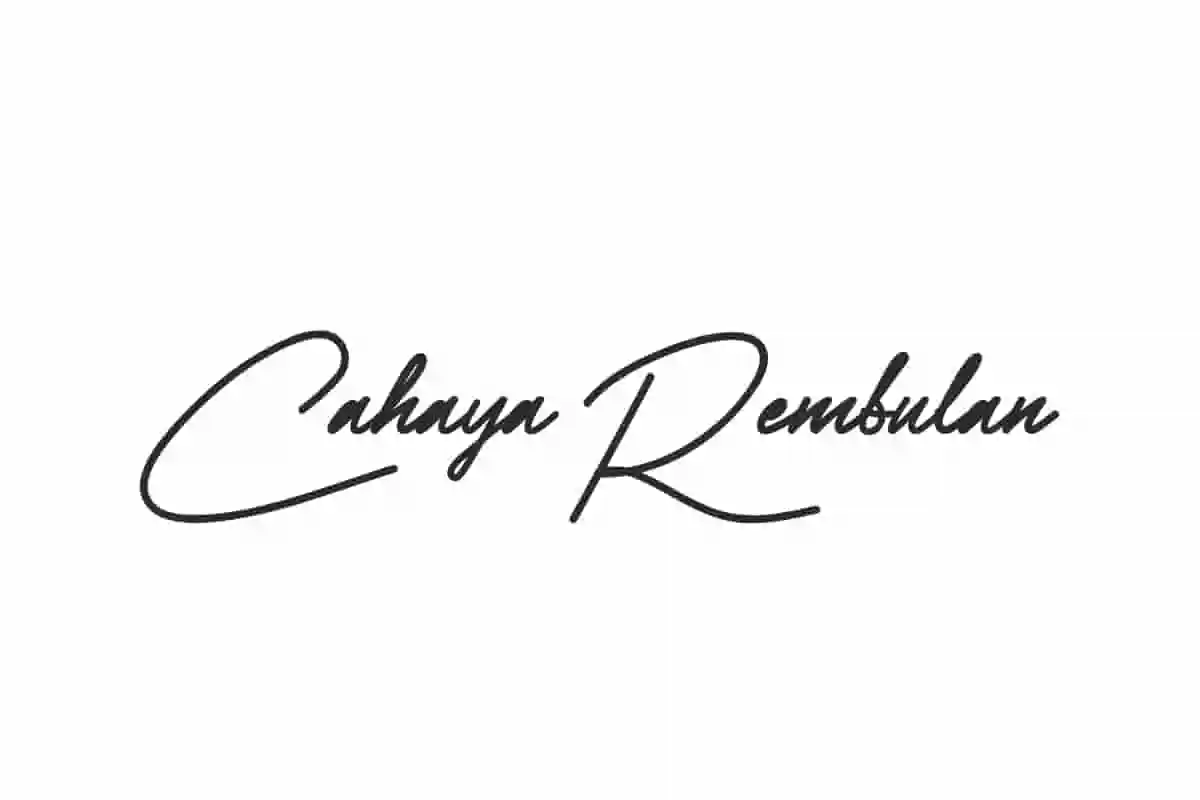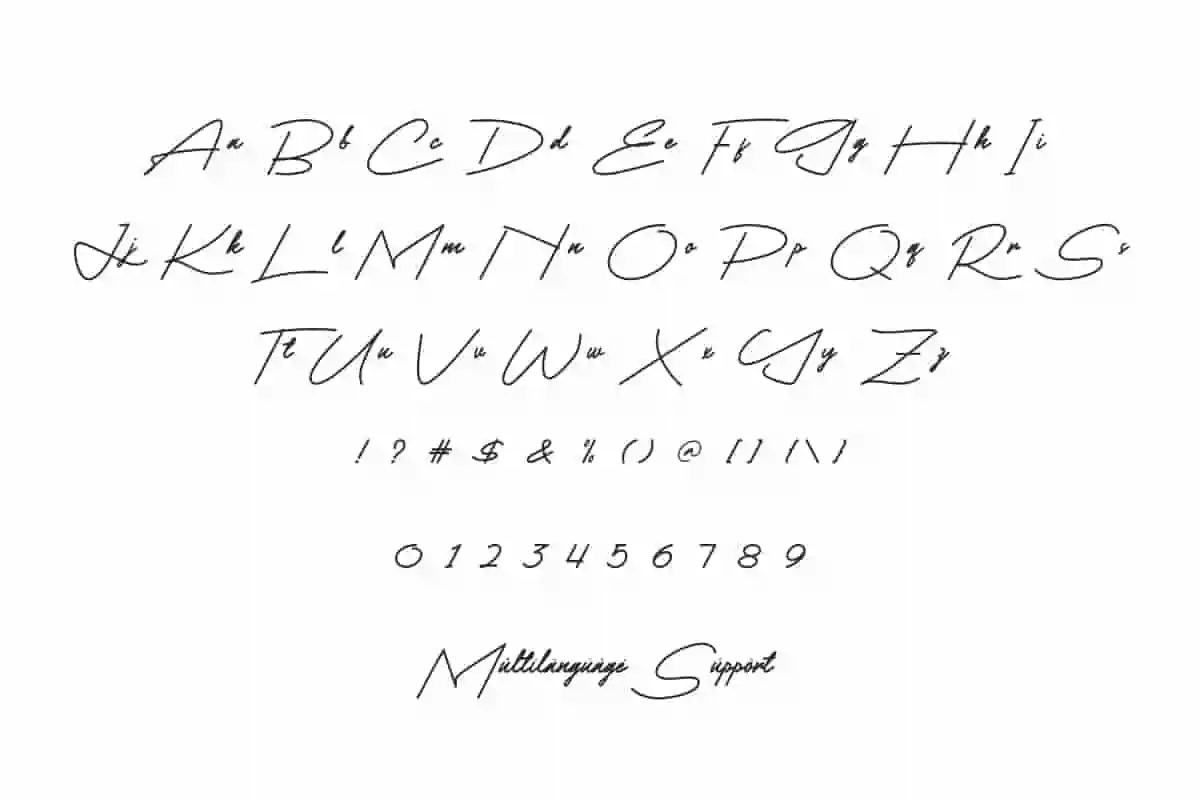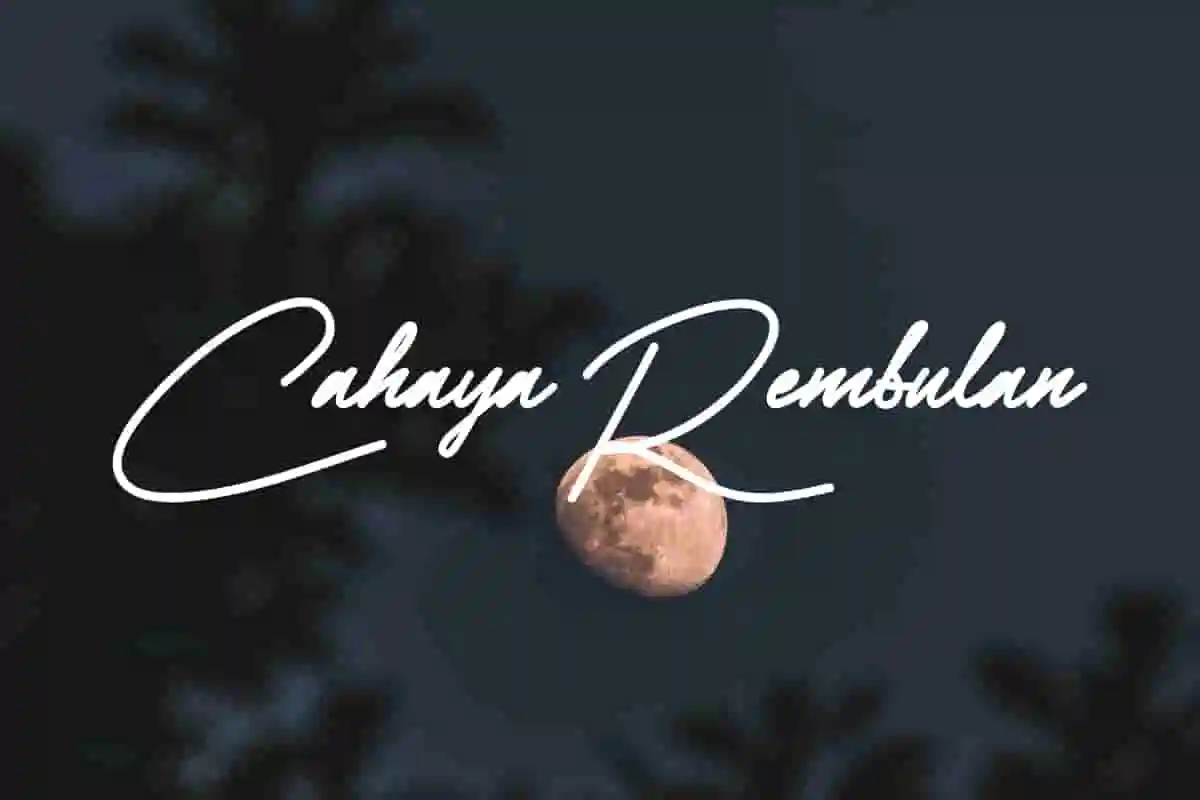
Cahaya Rembulan Font is a beautiful signature handwritten font with just the right thickness and a very charming appeal. Perfect for logo design, etc.
Cahaya Rembulan Font is a modern handwriting font that is specially made with a cute yet elegant shape. That way this font can be used in any project editing material, such as banner, billboard, blogs, brand logo, card design, cover, editorial, greeting card, headers, headline, invitation, label, logo, product packaging, quotes, sticker, template, title, website, etc.
Cahaya Rembulan Font includes a complete set of Basic Uppercase and Lowercase Characters, Numbers, Punctuation Marks and Symbols. This font has a uniqueness and appeal that can be seen with a luxurious feel when used in your editing project. It will be very suitable for use in advertising, apparel, event organizer, fashion, fragrance store, graphic design, photography, wedding, writer etc.